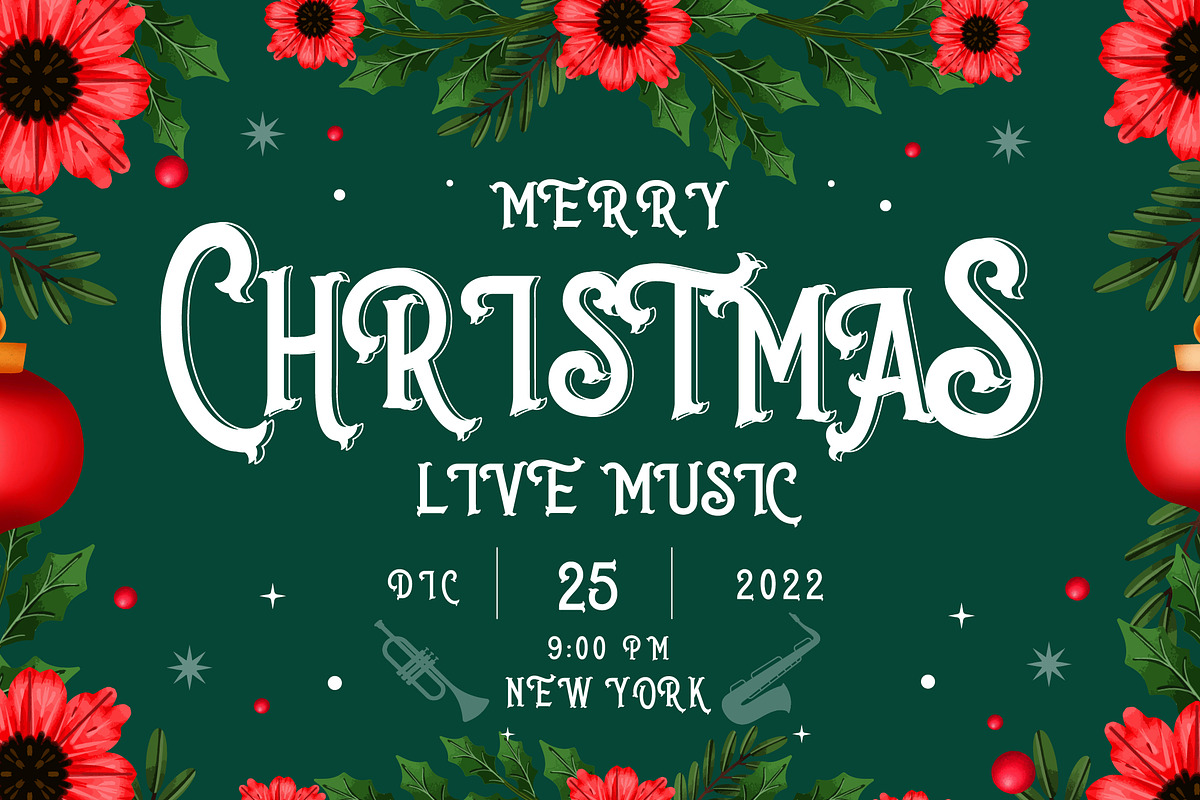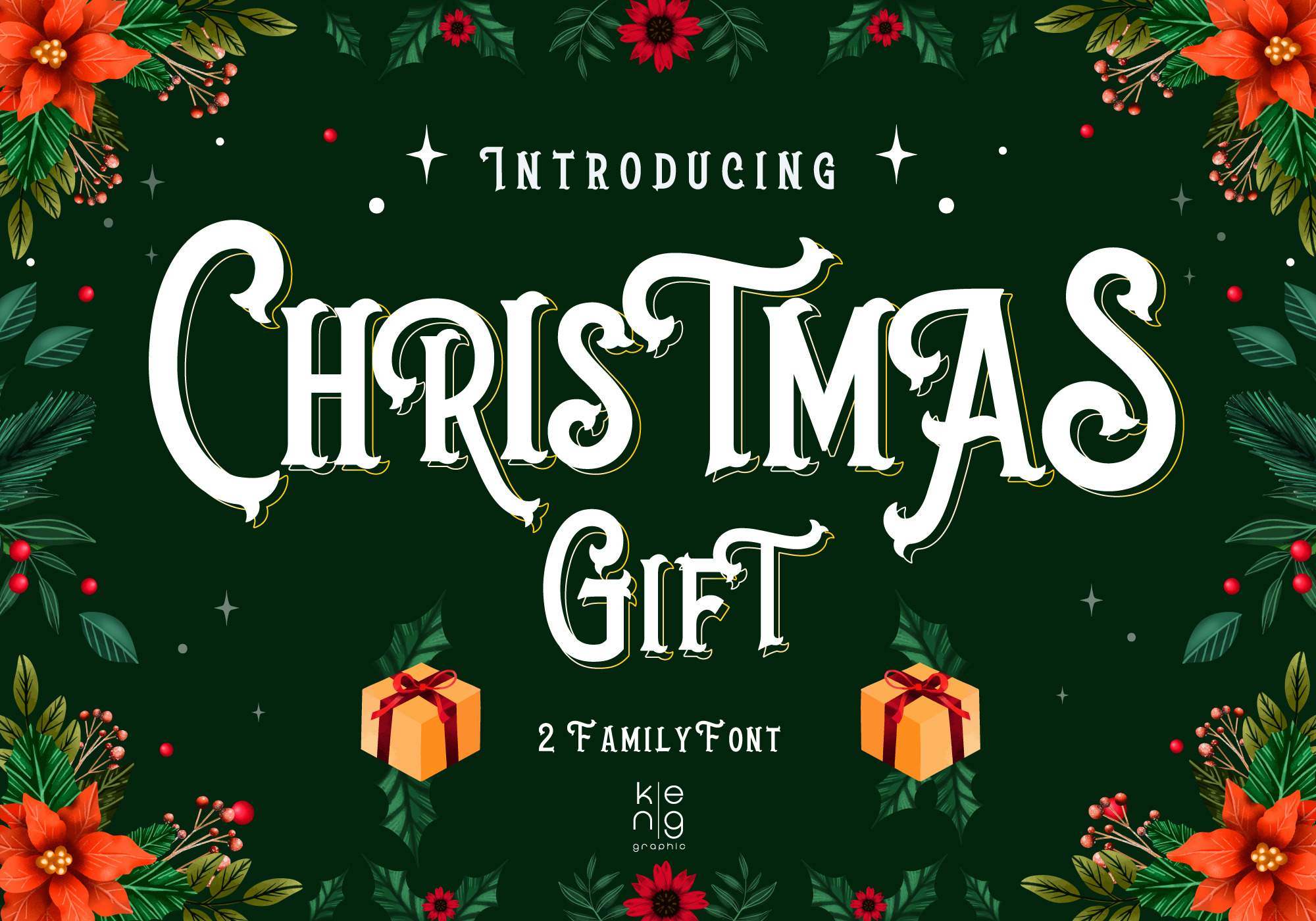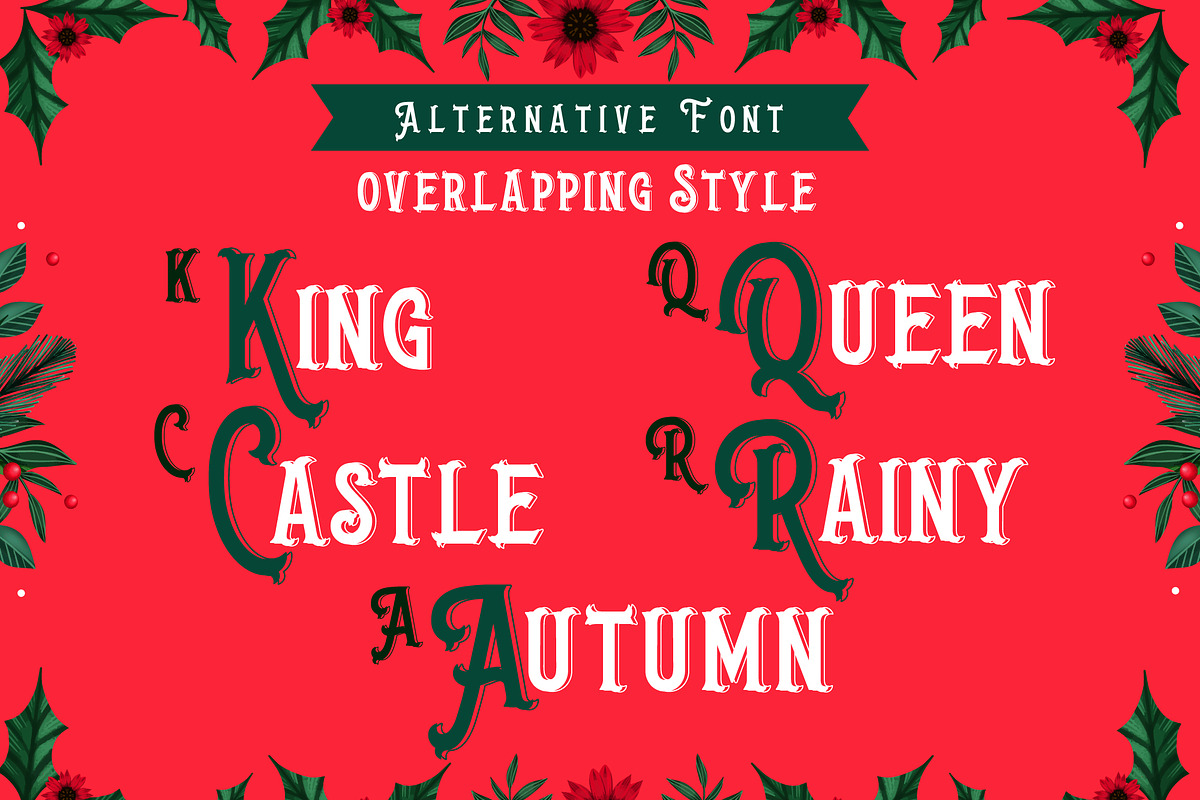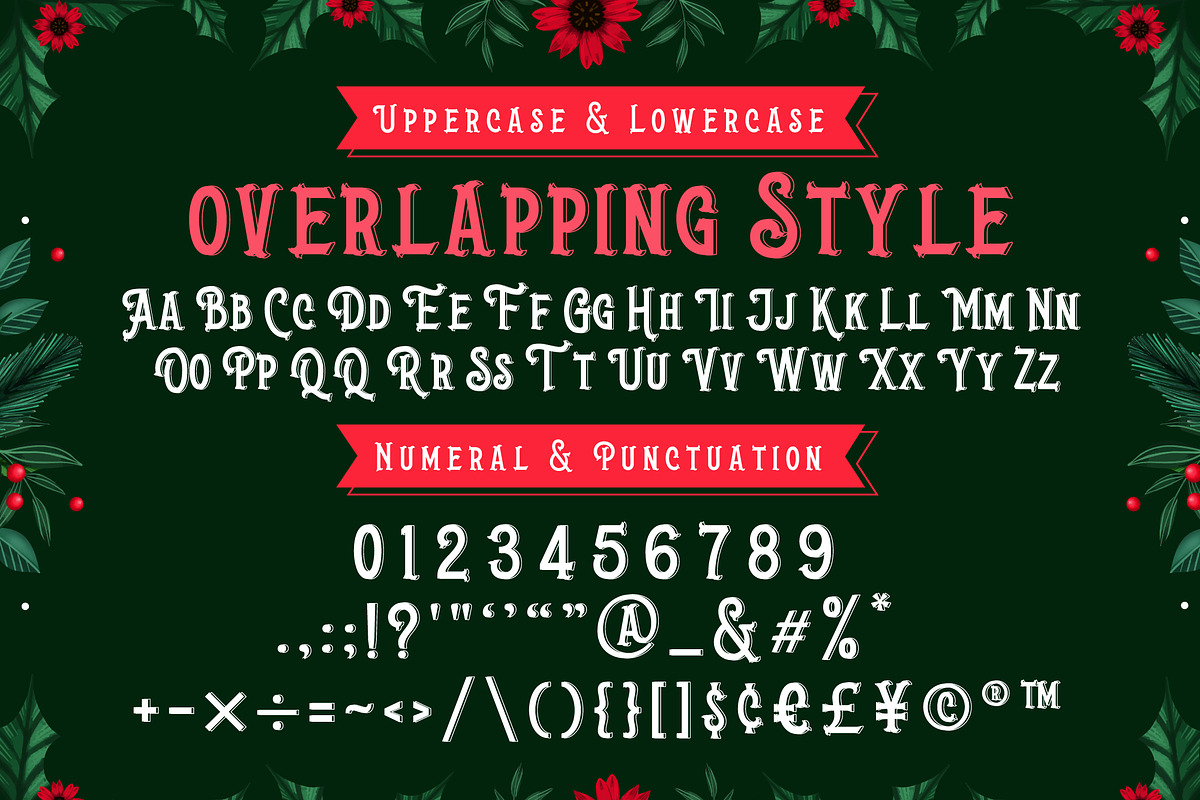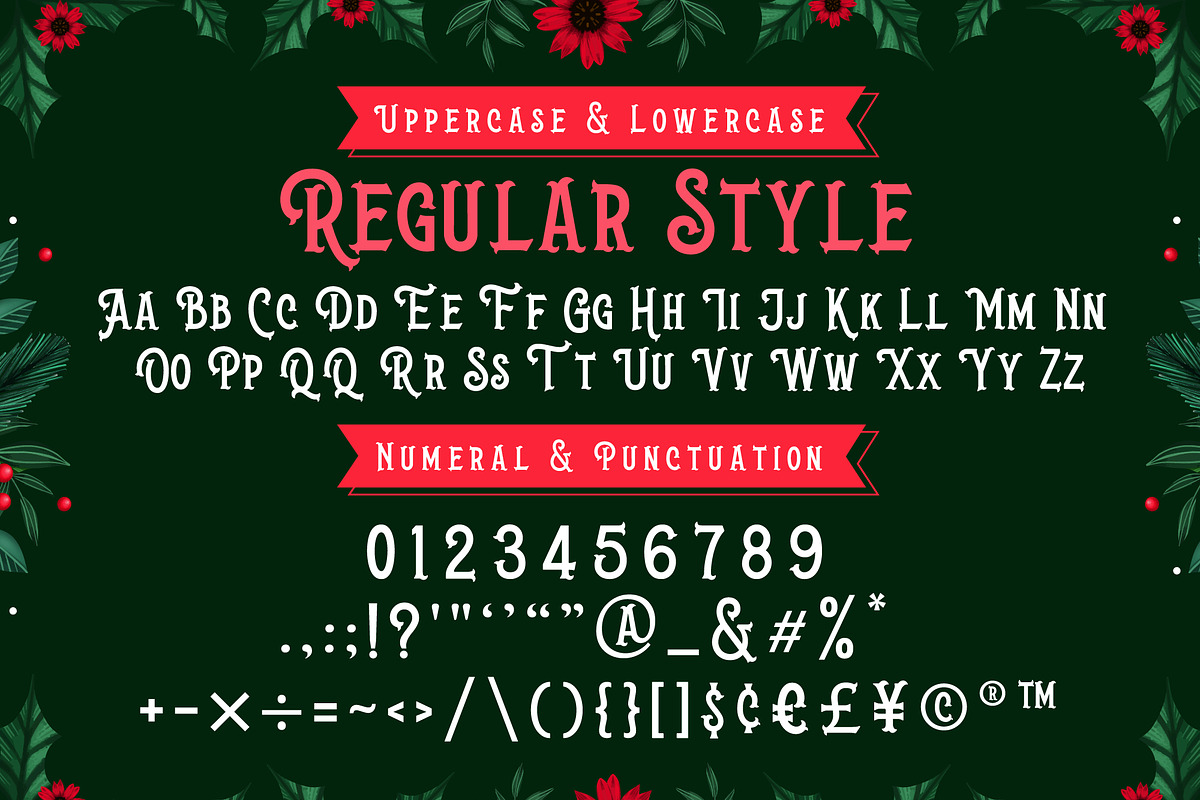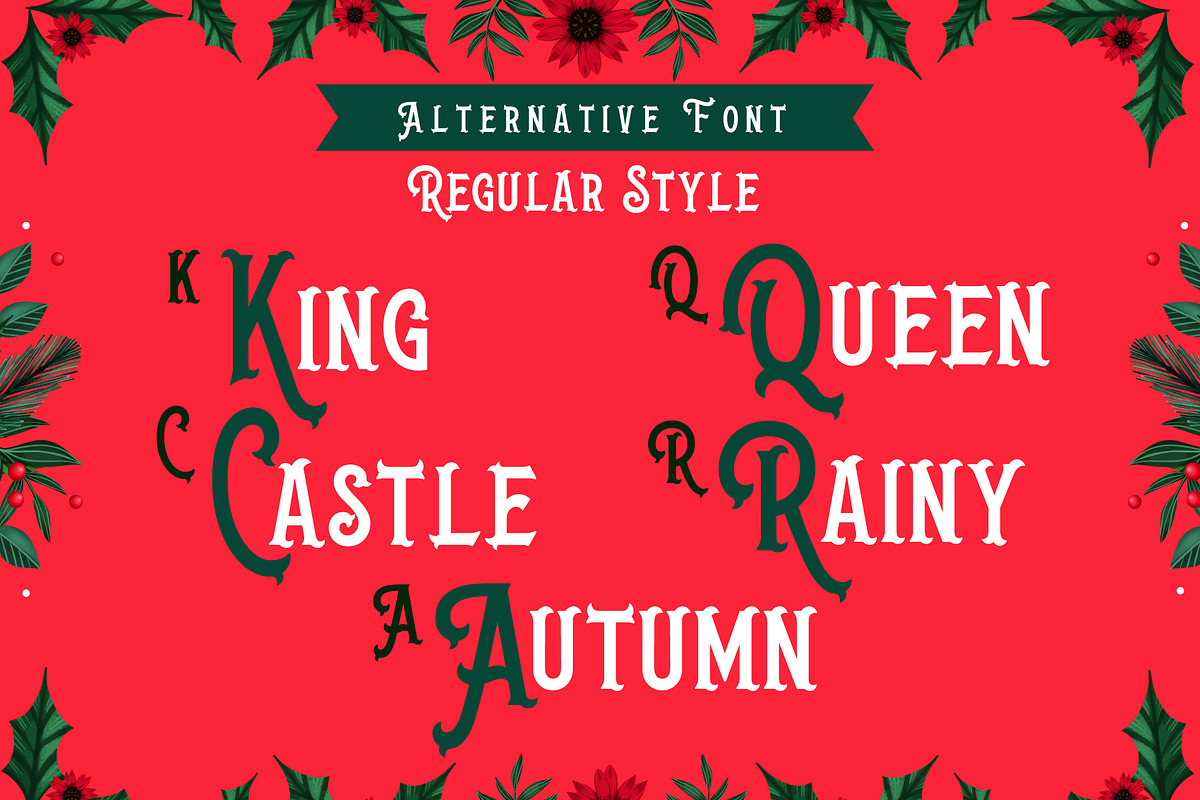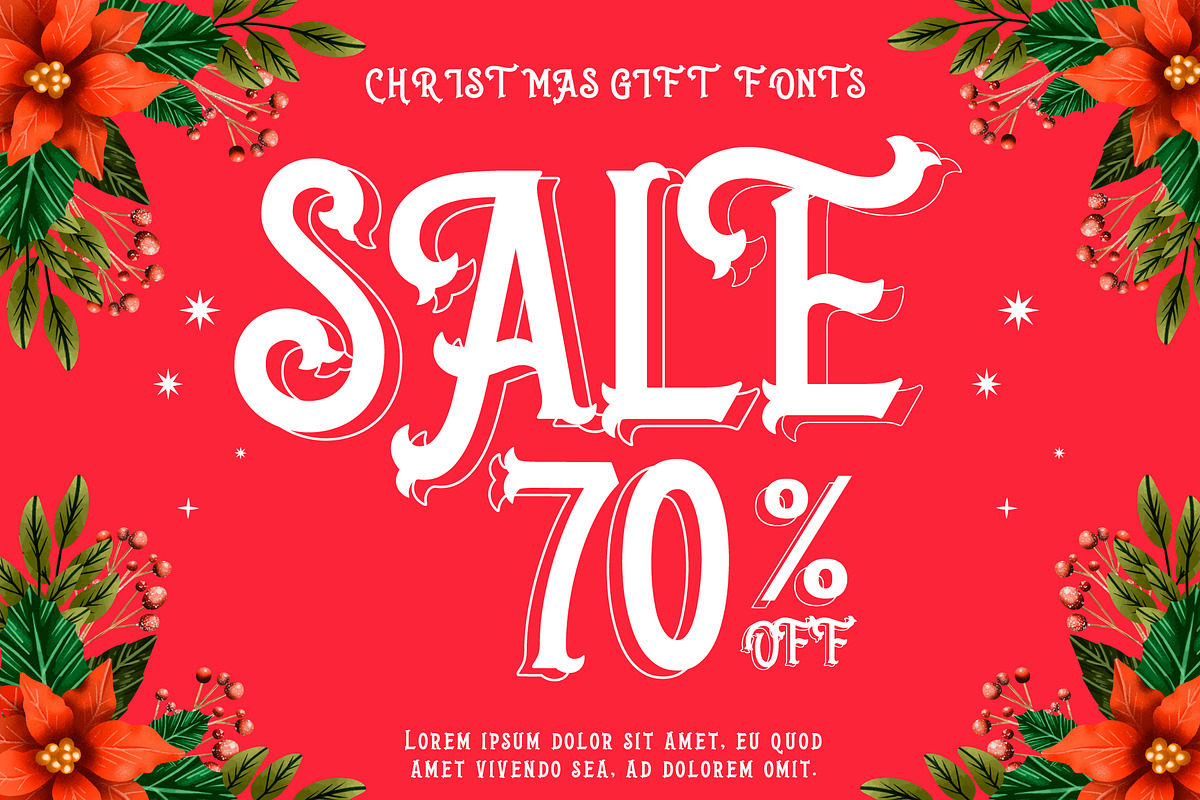
Christmas Gift Font
Christmas Gift is a fun and festive display font. Everything written in this font will be instantly recognizable and will attract attention. It will work great for holiday cards, love shirts, posters, movie titles, eye-catching social media posts, or anything that requires a cozy vibe.